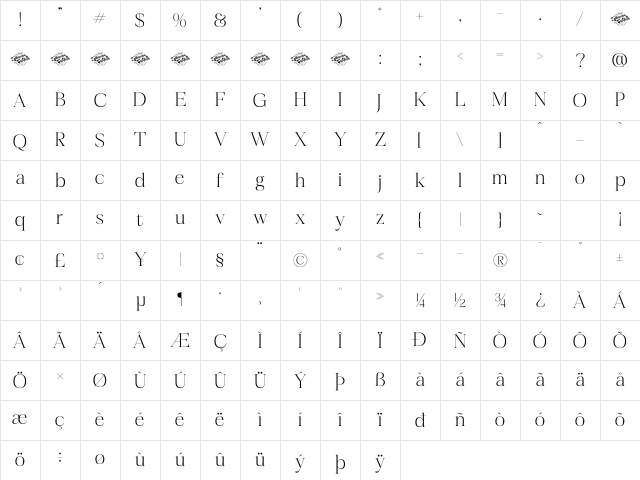
Realife Moment DEMO VERSION Regular
Foundry: Letterena Studios
Designer: Heru Utama Putra
Design Context for Realife Moment DEMO VERSION
Realife Moment DEMO VERSION is a composed and adaptable typeface that performs quietly and consistently across a wide range of design contexts.